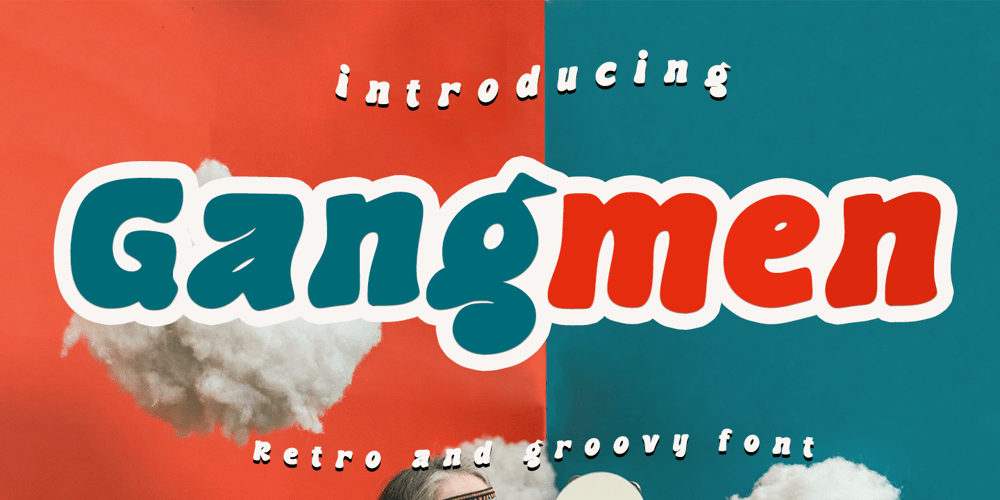
Gangmen
Gangmen font
Gangmen Font Family was designed by Muhammad Zaini and published by Cocodesign. Gangmen contains 1 styles and family package options. Gangmen a groovy and retro fonts display, including Regular. This font is casual and beautiful . It can be used for various purposes. such as logos, product packaging, wedding invitations, branding, headlines, signage, labels, signatures, book covers, posters, quotes, and many more.